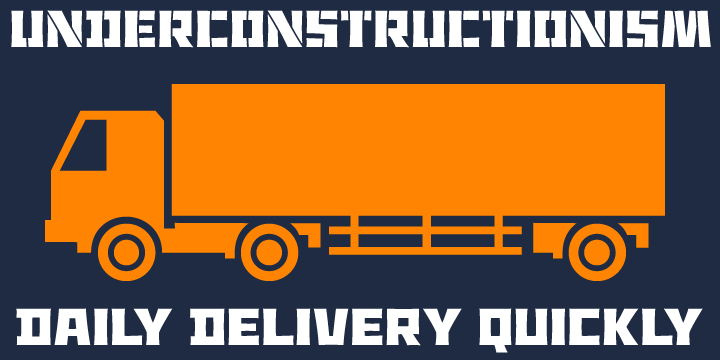
Underconstructionism™
Designed by: Ryoichi Tsunekawa
Designed when: 2006
Design owned by: Flat-it
Underconstructionism
This font based on and inspired by stencil signage in construction site. As you can see, heavy and rugged glyph is very eye-grabbing for headline and titling.